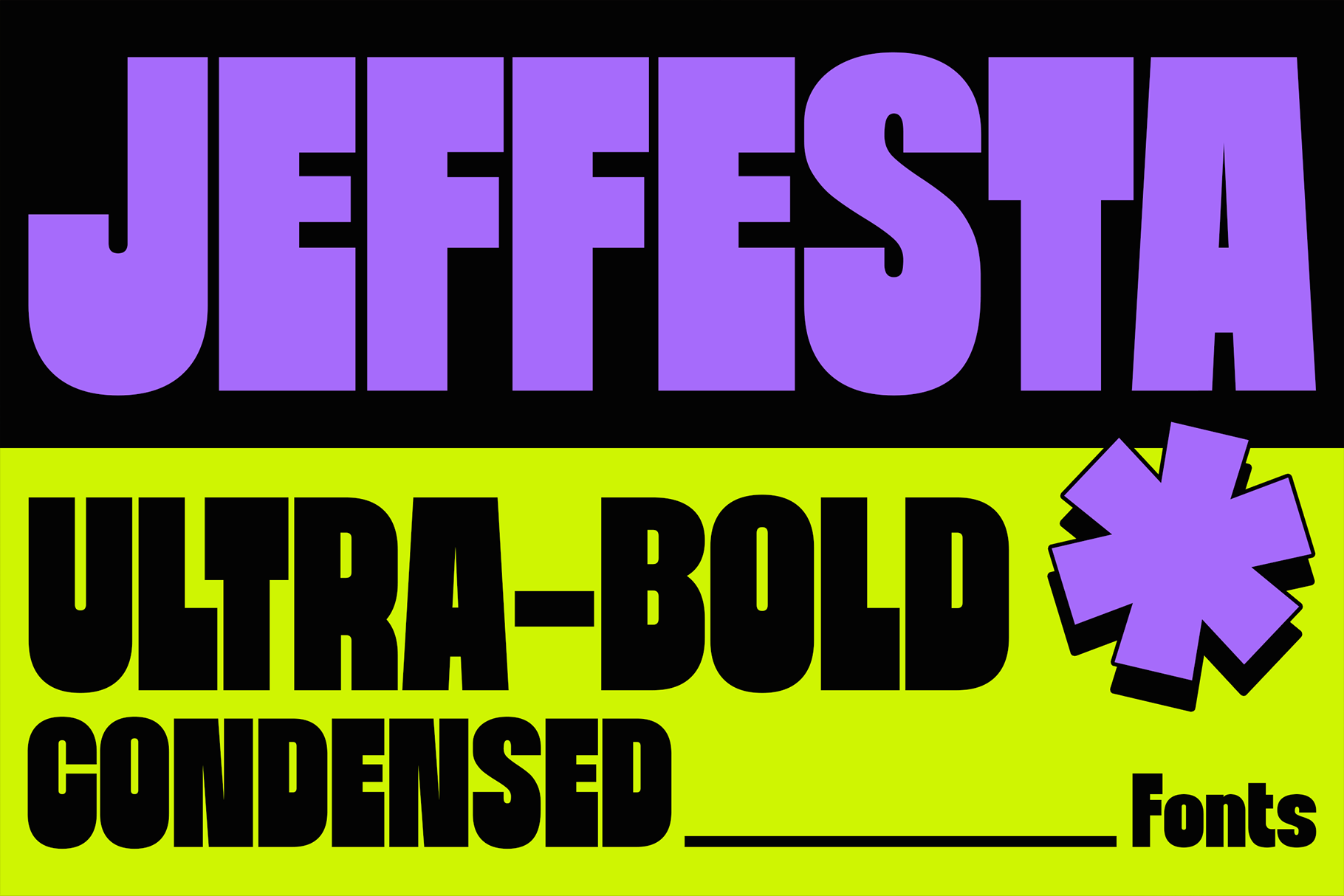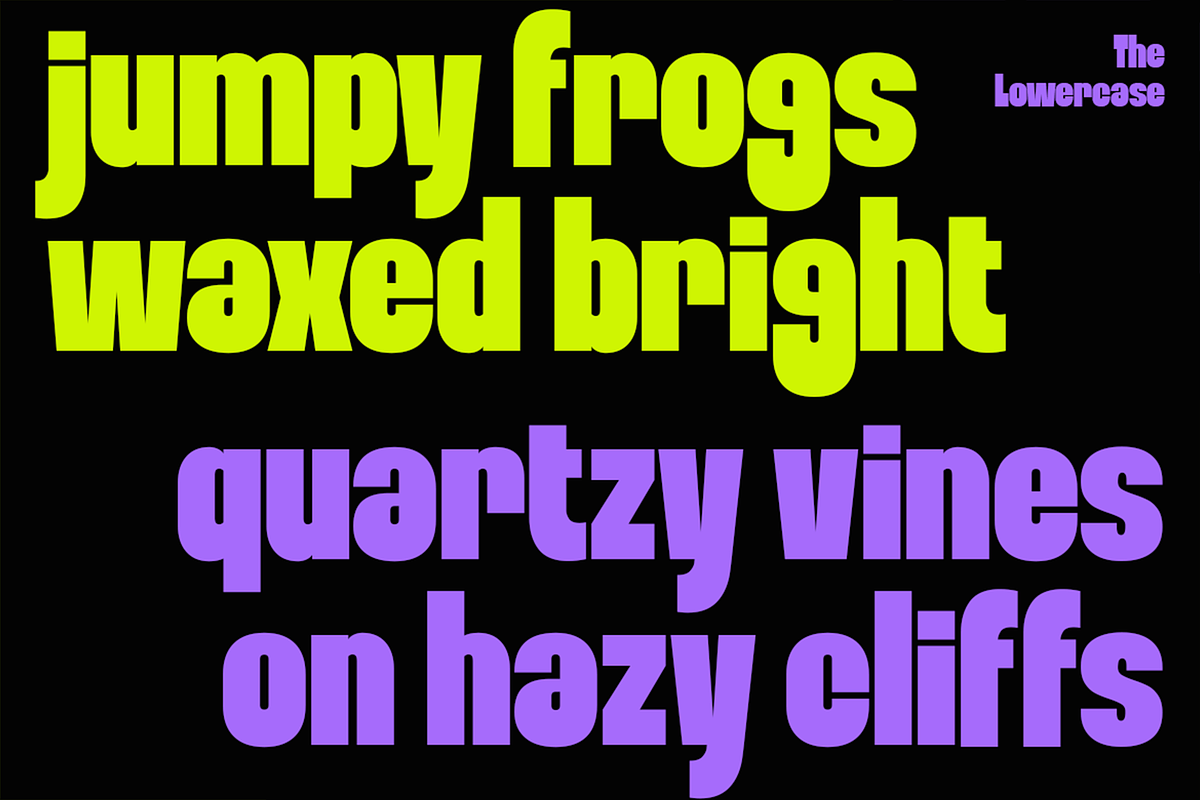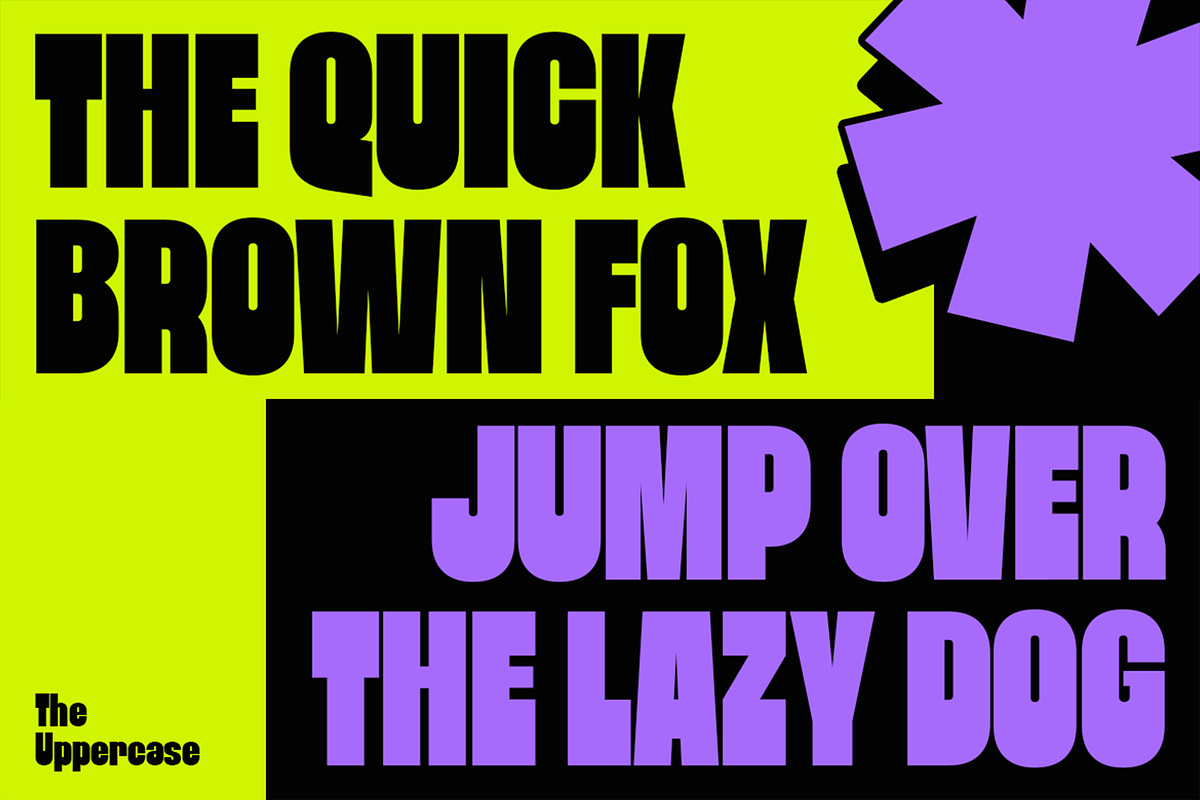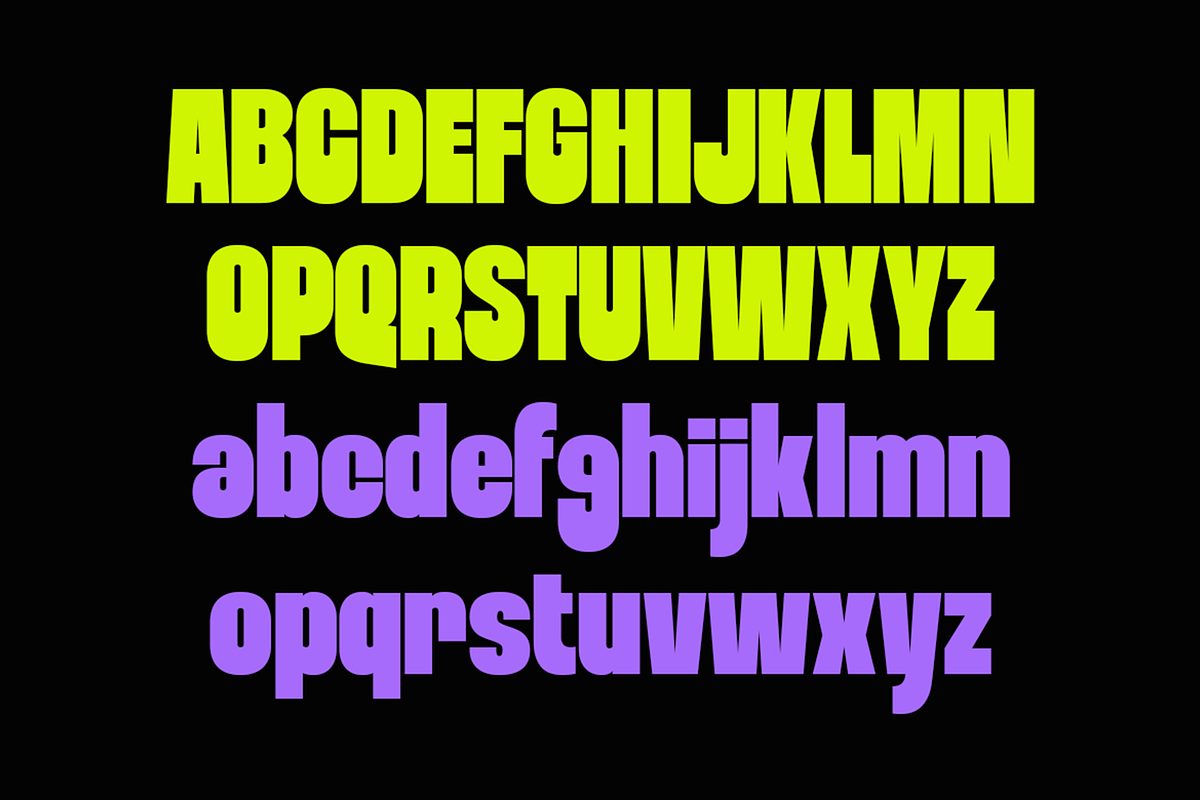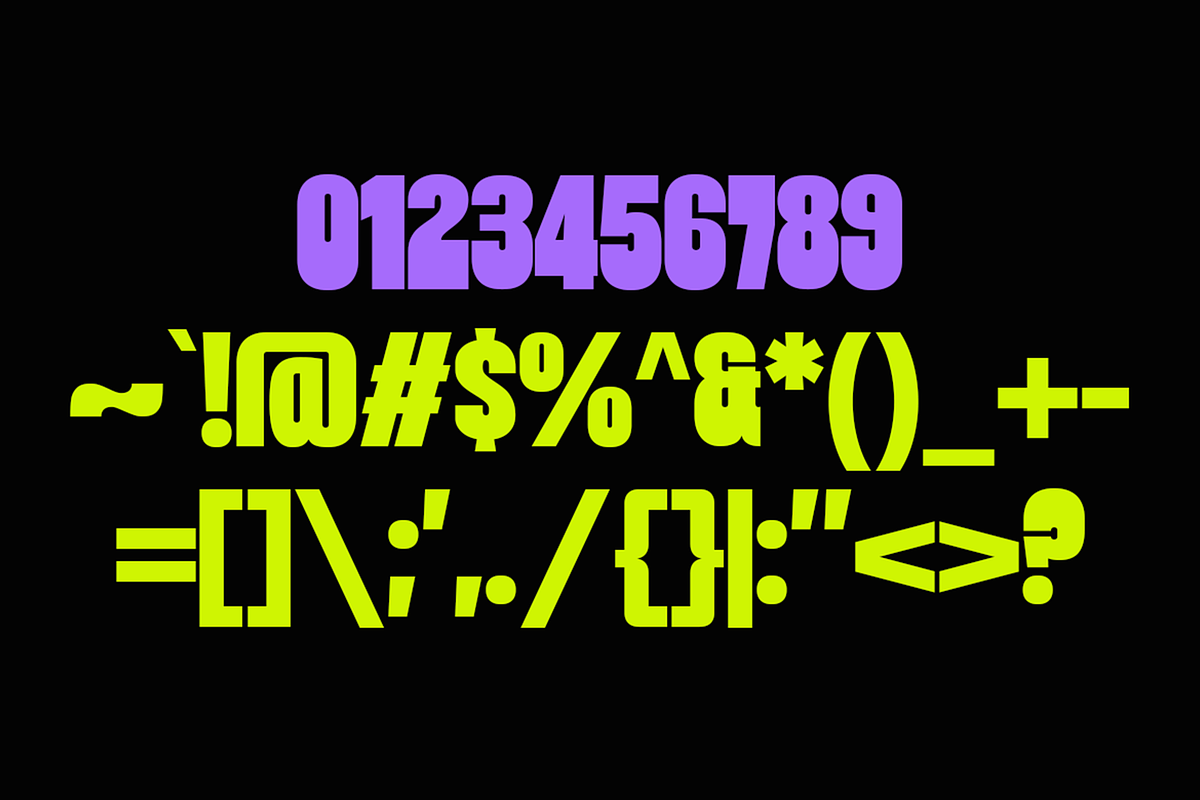
Jeffesta - Bold Retro Pop Fonts
Jeffesta: The Ultra-Bold, Condensed Sans-Serif That Demands Attention
Tired of predictable typography? Introducing Jeffesta, a groundbreaking sans-serif font that effortlessly fuses retro pop exuberance with the raw power of modern brutalism. Designed for creatives who dare to be different, Jeffesta isn't just a typeface—it's a statement.
Jeffesta boasts a truly distinctive silhouette, characterized by its ultra-bold, condensed form and an ingenious "fat at the bottom" design. This unique shaping creates an unparalleled visual rhythm, giving your text an unforgettable presence that leaps off the page (or screen!). Inspired by the vibrant energy of vintage pop posters and the audacious spirit of contemporary graphic design, Jeffesta is a celebration of individuality and bold aesthetics.
The Perfect Font for High-Impact Design
Where does Jeffesta shine brightest? Everywhere you need to make an impact:
Logos & Branding: Craft iconic brand marks that exude confidence and cutting-edge style. Jeffesta ensures your brand identity is both memorable and unmistakably unique.
Posters & Event Graphics: Command attention with headlines that pop. From music festivals to art exhibitions, Jeffesta brings an electrifying energy to your promotional materials.
Packaging Design: Make your products stand out on the shelves. Jeffesta's bold character creates a premium, modern feel that captivates consumers.
Editorial Design: Inject personality into magazines, zines, and web layouts. Jeffesta is perfect for statement titles and impactful short-form content.
Social Media Graphics: Create scroll-stopping visuals that dominate feeds and elevate your online presence.